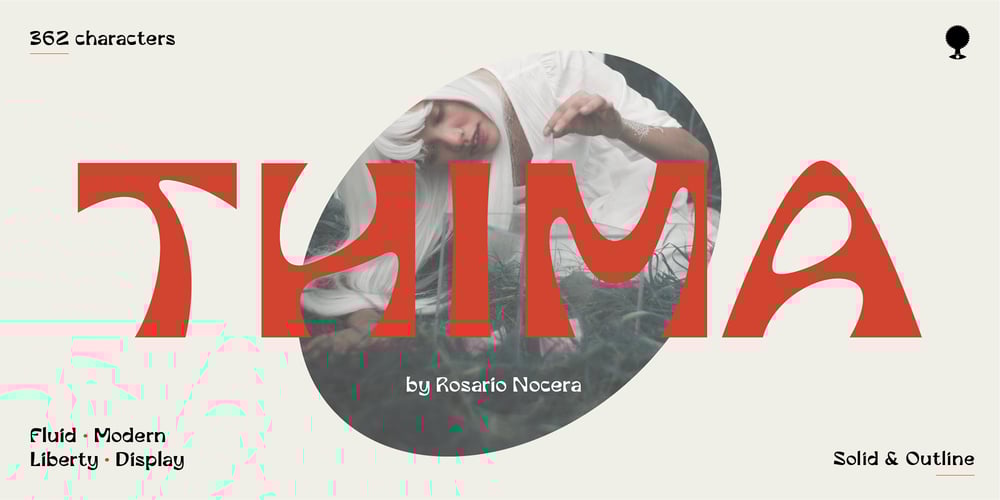
Thima Font Family was designed by Rosario Nocera and published by Rosario Nocera. Thima contains 2 styles and family package options. Thima is a display font inspired by the liberty style revisited to the present day, hence it is free from the canonical compositional standards that make up the majority of fonts. Its elegant shapes are available in two versions: solid and outline.Thima’s unique features are enhanced by the perfect fusion between irregular and fluid shapes that coexist with right angles. Despite being a display font, the lowercase version is suitable for short and long paragraphs of text, while for large titles the uppercase shows off all its potential.